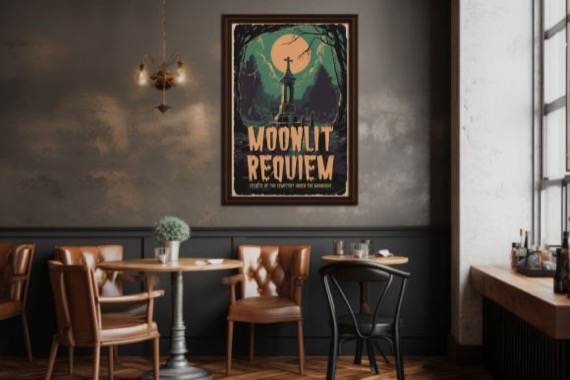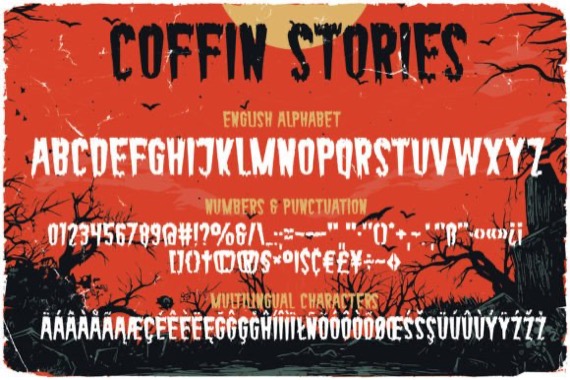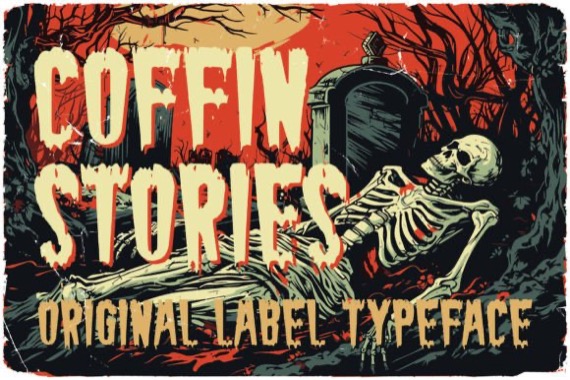
Coffin Stories is a meticulously handcrafted font that channels the chilling essence of vintage movie posters. This font will infuse your designs with the eerie charm and crafty appeal you’ve been seeking.
Coffin Stories Display Font